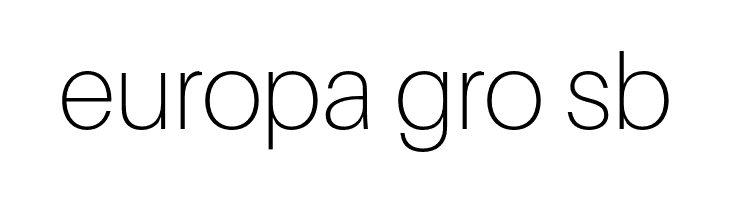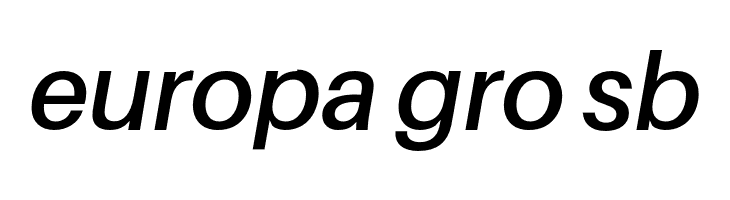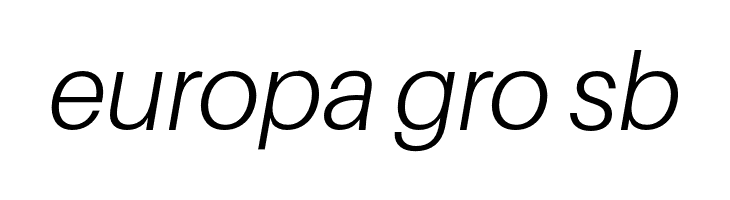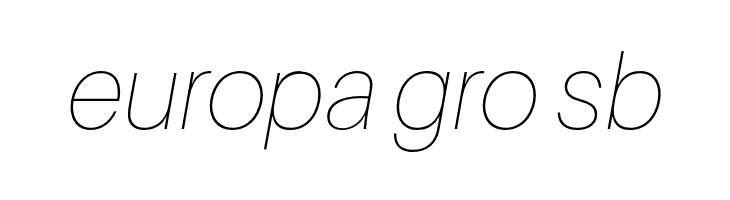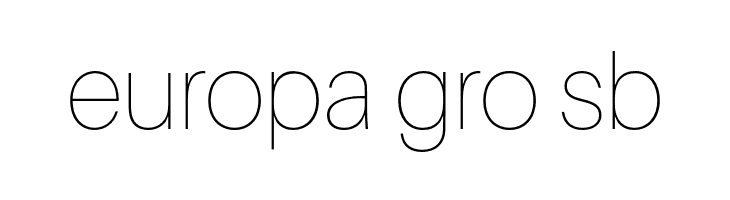
A bold, geometric font with playful, angular characters.
A modern sans-serif font with clean lines and excellent readability.
A bold, modern font with clean lines and strong geometric shapes.
Bold and italicized font with a modern and dynamic style.
A modern, italic font with clean lines and balanced proportions.
A modern, medium-weight italic font with clean lines and a dynamic appearance.
A bold, decorative font with intricate flourishes and curls.
A bold, futuristic font with sharp angles and a dynamic style.
A geometric, angular font with a futuristic digital style.
A playful, hand-drawn font with rounded edges and a whimsical style.
A playful, handwritten italic font with smooth, rounded strokes.
A bold, modern font with clean lines and a touch of elegance.
A playful, informal handwritten font with bold, dynamic strokes.
A playful, casual handwritten font with rounded edges and consistent stroke width.
A bold, geometric outline font with a modern, futuristic style.
A bold, geometric font with a modern, structured design.
A playful handwritten font with smooth curves and a friendly appearance.
A modern, elegant script font with flowing, interconnected characters.
An elegant script font with fluid, cursive strokes and high contrast.
A dynamic, brush-like font with sharp, expressive strokes.
A dynamic, brush-style font with fluid, hand-drawn strokes.
A bold, expressive script font with fluid, interconnected strokes.
A raw, edgy font with jagged strokes and a graffiti-like aesthetic.
A dynamic and fluid script font with connected, cursive letterforms.
A modern, geometric font with clean lines and sharp angles.
A bold, modern font with clean, geometric lines and strong visual impact.
A bold, backslant font with a modern and dynamic style.
A bold, italicized font with strong, dynamic strokes and a cohesive design.
A bold, modern font with thick strokes and strong geometric shapes.
A bold, backslanted font with a dynamic and energetic style.
A bold, italic font with a modern, dynamic style and high contrast.
A bold, modern typeface with geometric shapes and a strong presence.
A bold, backslanted font with a modern and dynamic style.
A bold, italic font with a modern and dynamic style.